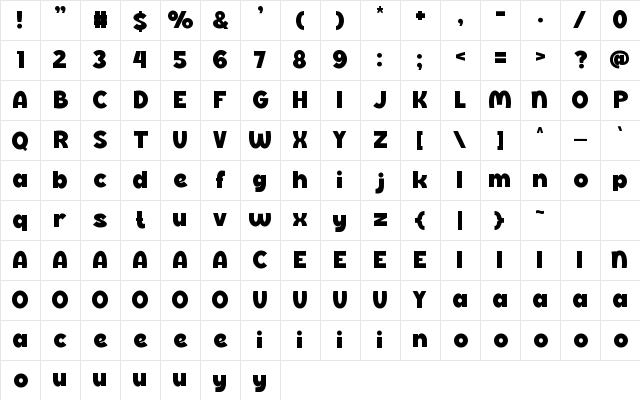
Randall is a composed and adaptable typeface that performs quietly and consistently across a wide range of design contexts.
Pro Tip: Use Randall in both headline and body roles to test its range before committing to a single application.